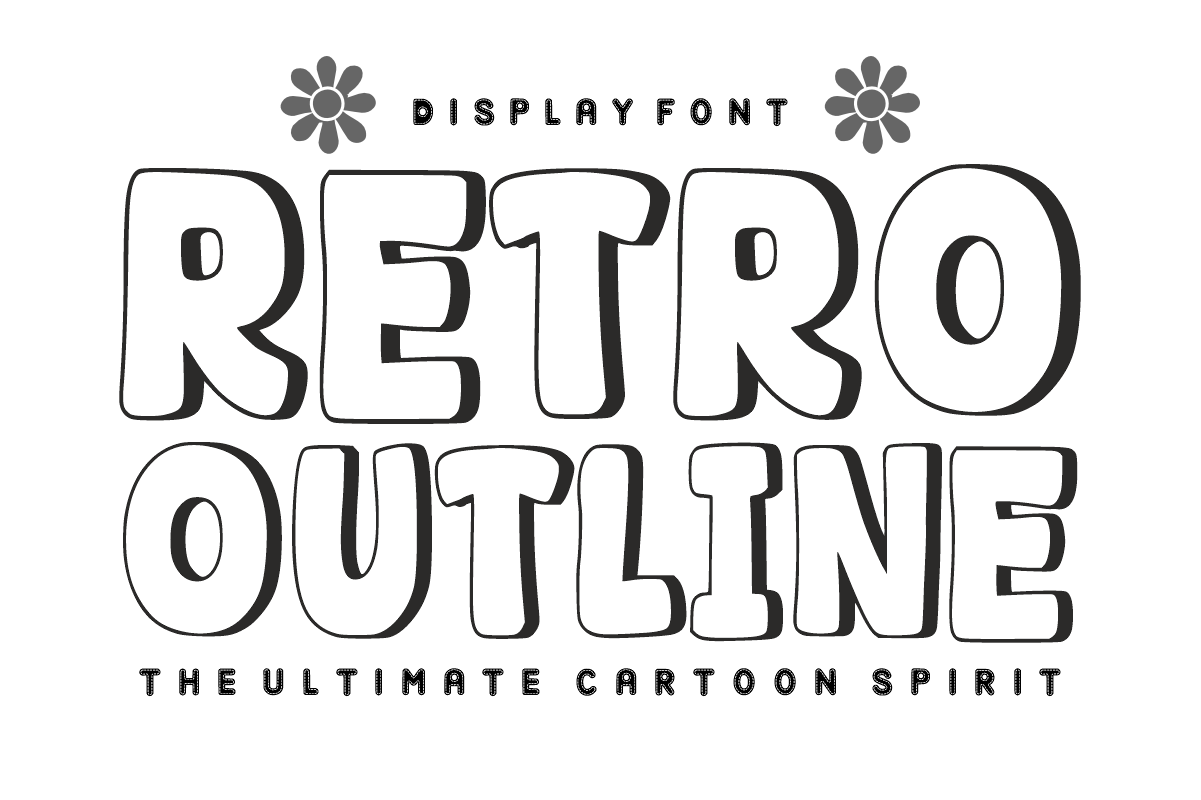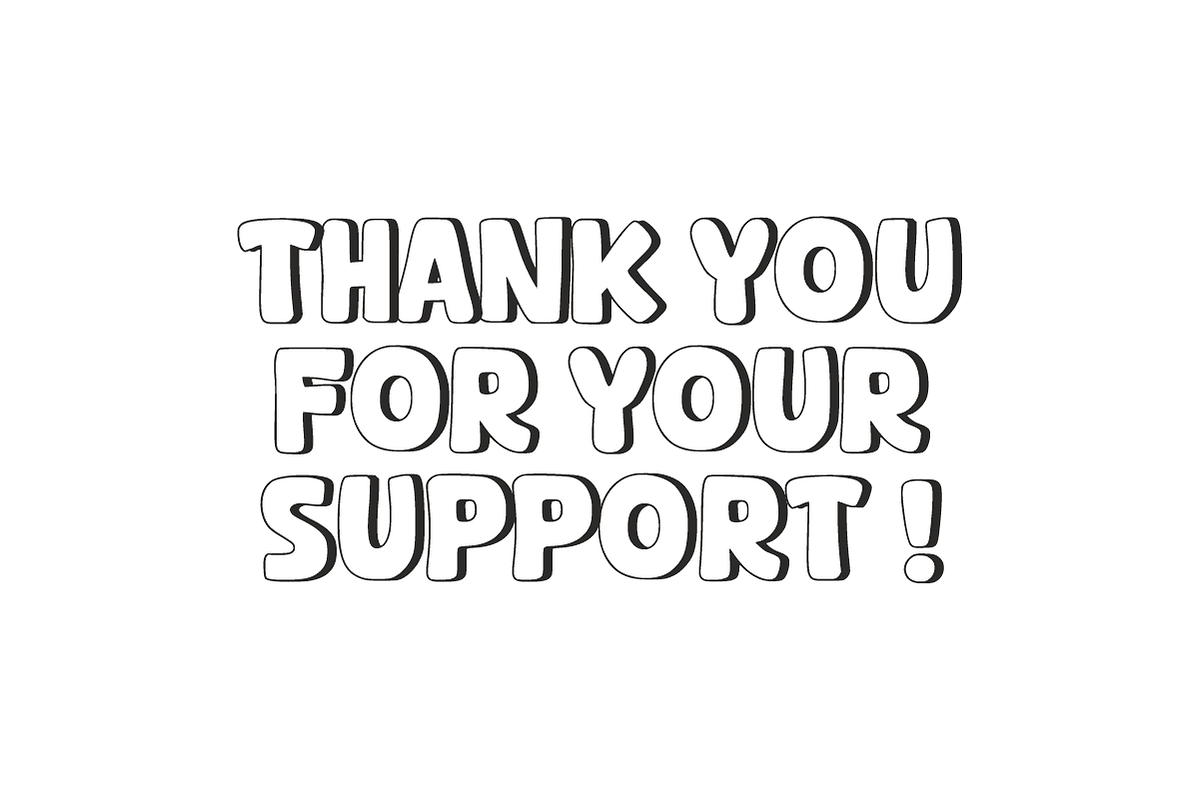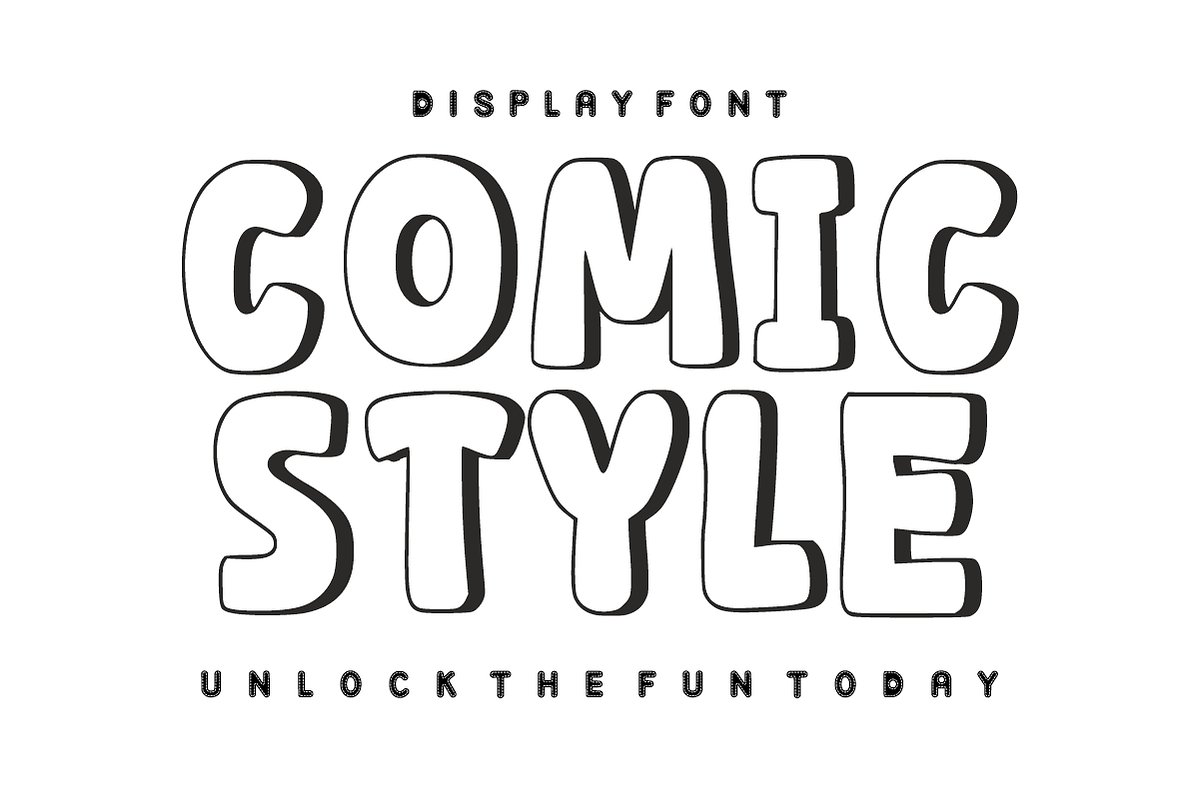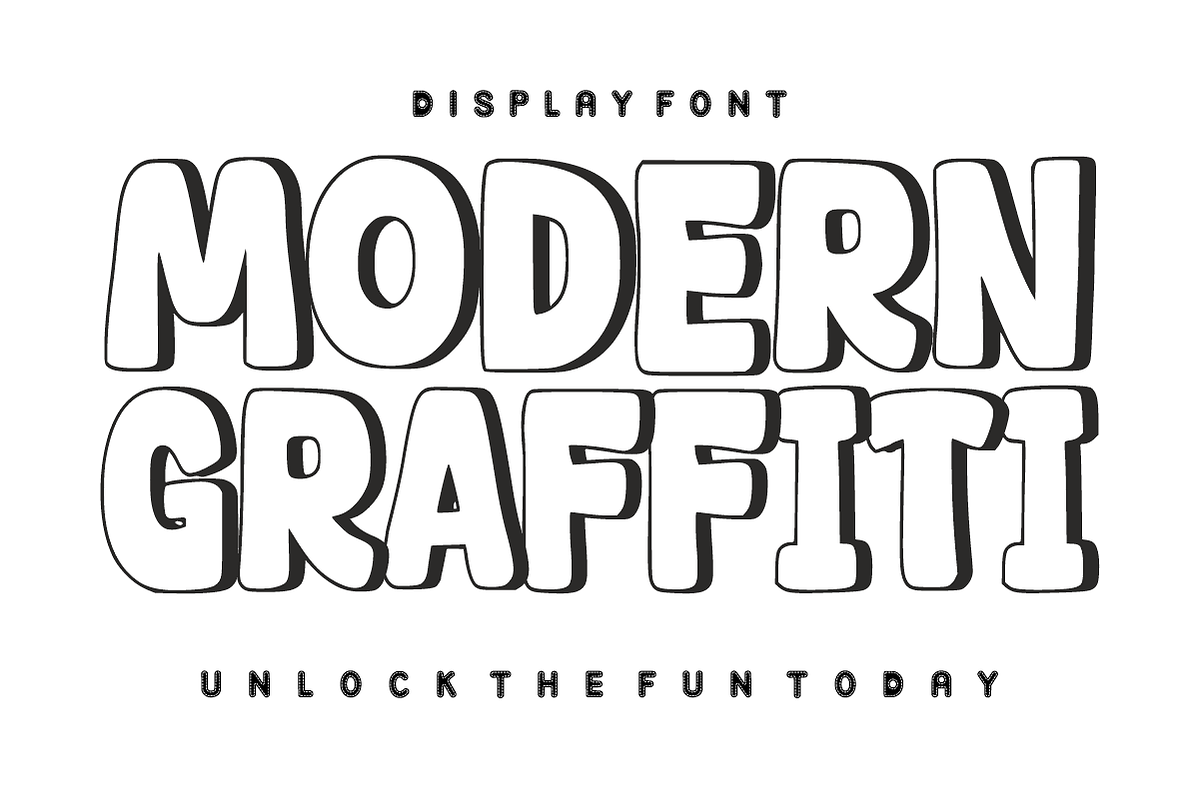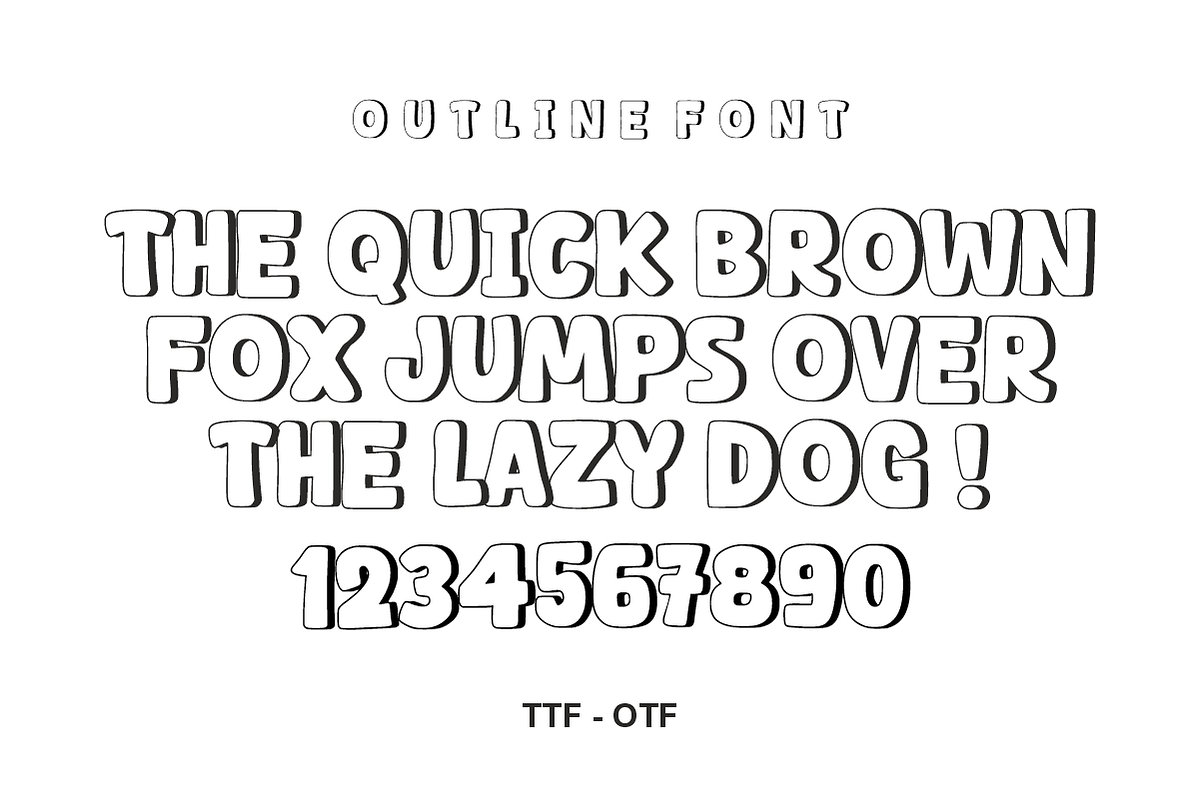
Retro Outline – Cartoon Outline Font
Retro Outline – Groovy & Bold Cartoon Outline Font ✌️✨
Bring a nostalgic, high-energy vibe to your creative projects!
Retro Outline is a vibrant, bold display font that captures the ultimate "cartoon spirit." Featuring thick, rounded silhouettes and a clean hollow-outline style, this typeface is inspired by the groovy aesthetics of the 60s and 70s mixed with a modern, playful twist. Its high-impact look makes it an essential tool for designers who want their headlines to pop with personality.
This is not a color font, which gives you total creative freedom. Use it as a clean outline for a minimalist look, or layer it over colors and gradients to create that iconic "sticker" or "bubble" effect. Whether you’re designing for the digital world or physical crafts, Retro Outline is built to stand out.
🌟 Why Retro Outline is a Perfect Choice:
Timeless Retro Aesthetic: Perfectly fits the trending "Modern Groovy" and "Y2K Sticker" design styles.
Highly Customizable: Since it’s a standard outline font, you can easily change colors or add offsets to create 3D effects.
Maximum Legibility: The bold, chunky characters ensure your message is readable from a distance or at small sizes.
Craft-Ready: Features clean, smooth paths that are optimized for cutting machines like Cricut and Silhouette.
Uppercase Letters (A-Z): Bold, expressive, and fun characters.
Numbers (0-9) & Basic Symbols: Essential figures for complete design layouts.